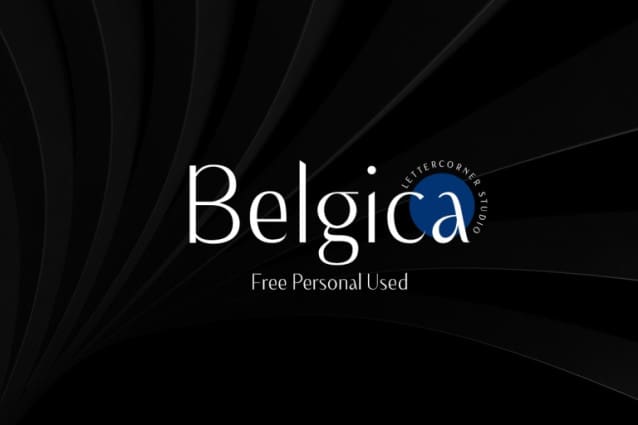
Belgica Font
Belgica Font, it would be a perfect choice to design posters, affiches, logos, t-shirt and magazine prints, eye-pleasing typographic designs and more.